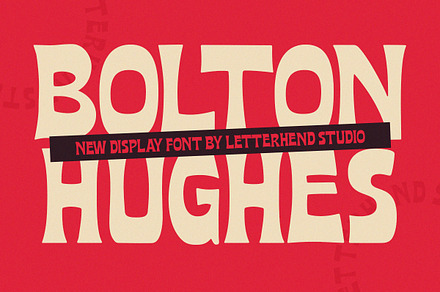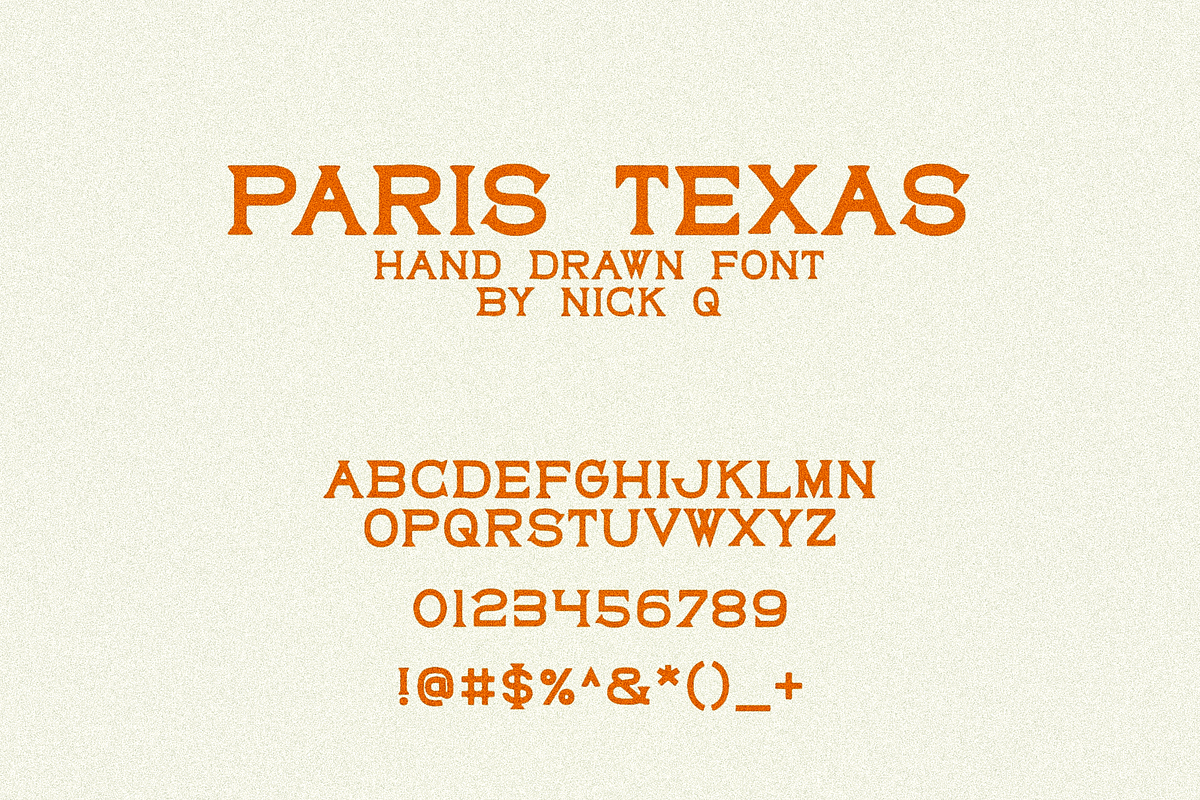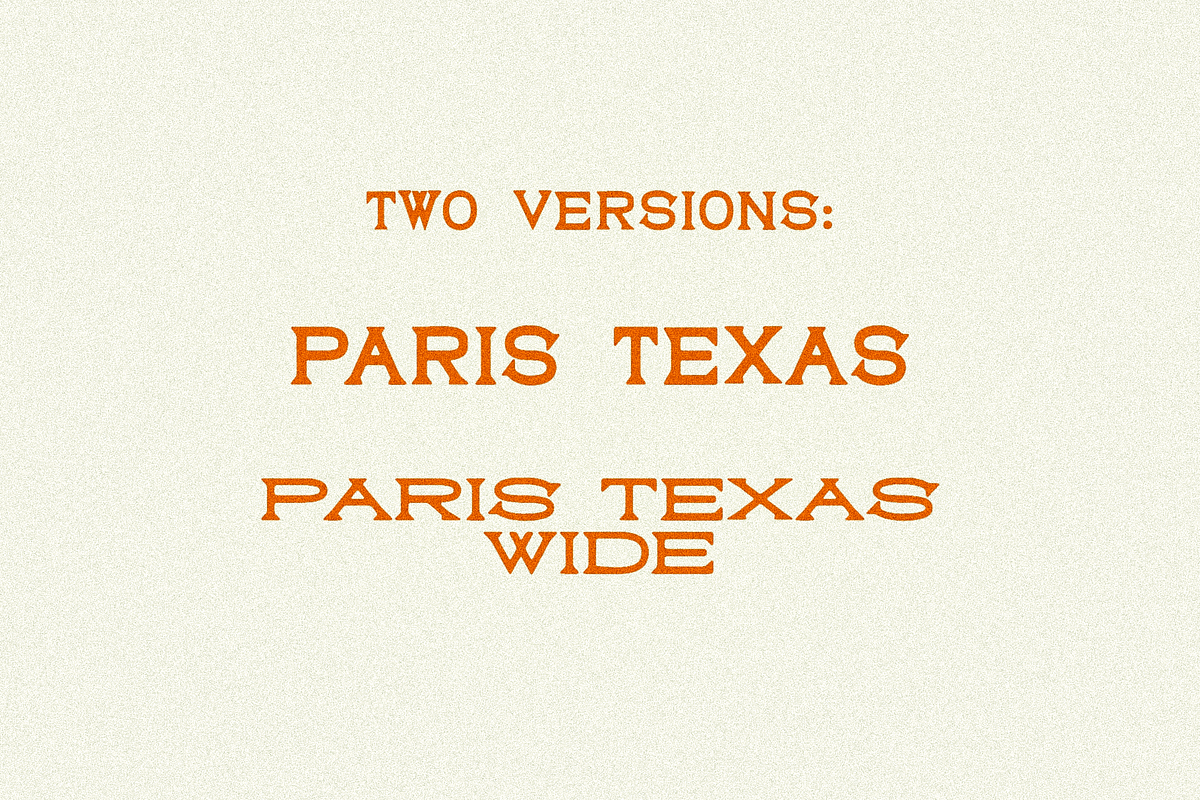
Paris Texas Hand Drawn Font
Paris Texas is a really great set of fonts that come in regular and wide. This font is elegant, beautiful, emotional and raw.